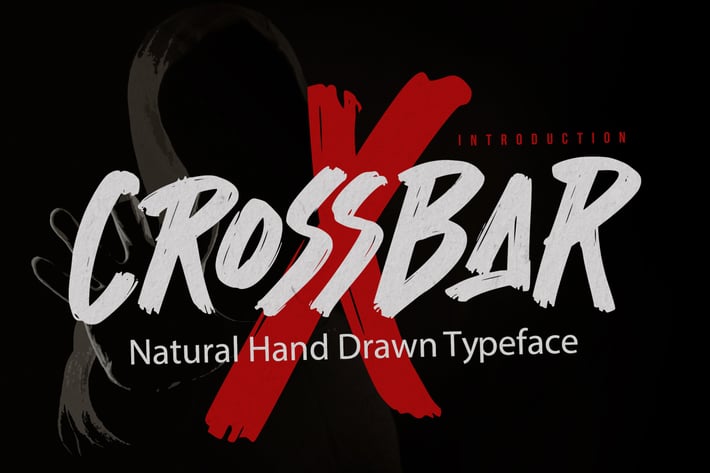
Crossbar - Natural Hand Drawn Typeface
Crossbar -Natural Hand Drawn Typeface Introducing of our new product that inspired by Street Tagging, graffiti style with a fun theme very good for graffity poster, Hip Hop music, kids poster, flyer, childrenbook, cartoon, comic etc